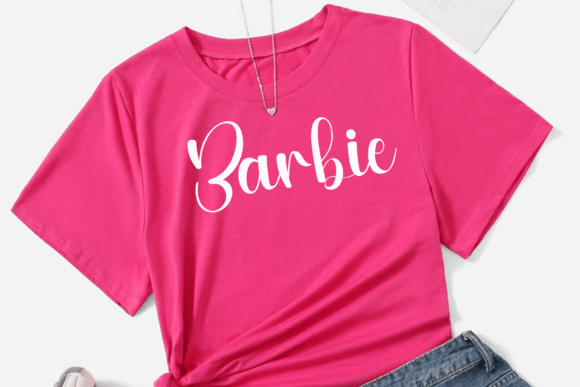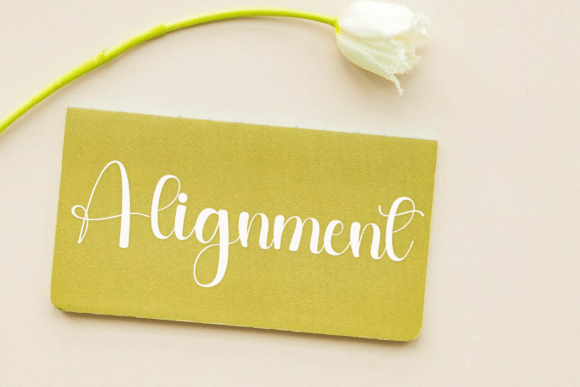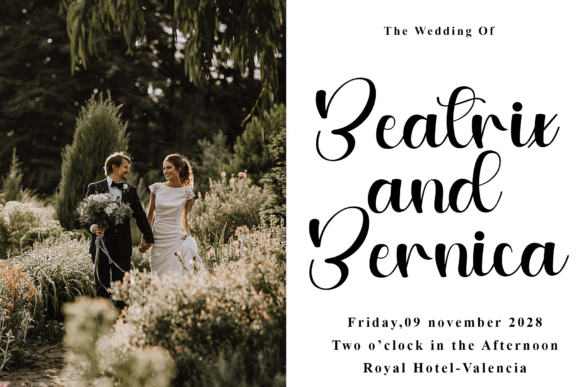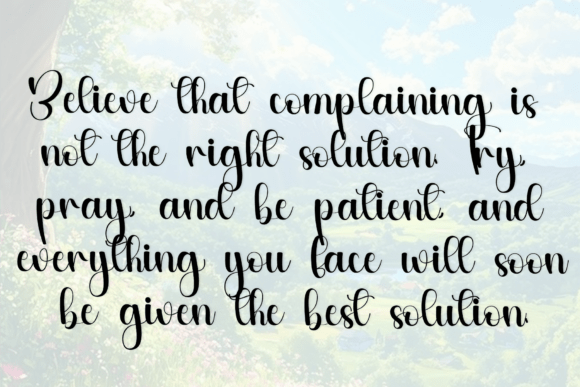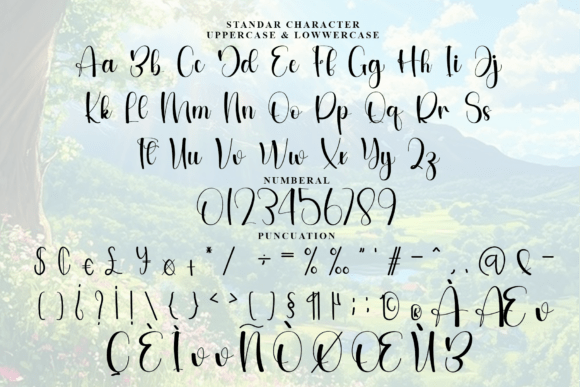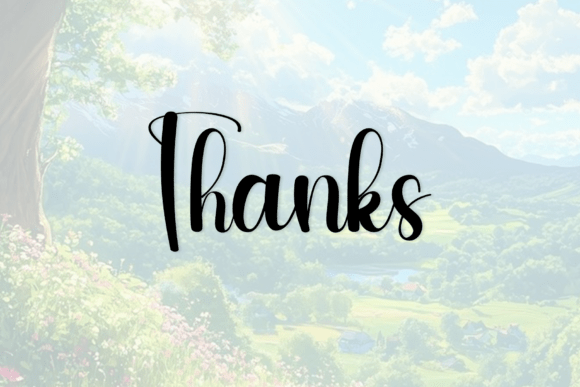
Discover the Enchanting Font: A Stylish Handwritten Typeface for Your Creative Projects
Are you looking for a font that can add a touch of organic charm and a strong typographic presence to your designs? Look no further than the Enchanting font, a stylish handwritten typeface that is sure to captivate your audience. In this article, we’ll explore the unique features of the Enchanting font, its uses, and why it’s a great addition to your font collection.
The Unique Characteristics of Enchanting Font
The Enchanting font is a beautiful blend of organic and strong typographic elements. Its thick, solid strokes give it a bold and confident look, while its distinct “bouncy” rhythm adds a friendly and approachable character. This font is part of the “Unique and Professional” collection, which means it’s designed to help you create stunning designs that stand out from the crowd.
One of the key features of the Enchanting font is its well-balanced proportions. Even in busy designs, this font remains impactful and easy to read, making it perfect for a wide range of applications. Whether you’re designing a logo, creating a brochure, or crafting a social media post, the Enchanting font is sure to make a lasting impression.
Perfect for Outdoor Lifestyle Branding and More
The Enchanting font is perfectly suited for outdoor lifestyle branding, organic product packaging, travel-themed graphics, and rustic event invitations. Its handmade look and feel evoke a sense of adventure and freedom, making it ideal for brands that want to convey a sense of excitement and exploration.
Imagine using the Enchanting font to create a logo for a outdoor gear company, a label for a craft beer, or a poster for a music festival. The possibilities are endless, and the Enchanting font is sure to help you create stunning designs that capture the essence of your brand.
Why Designers and Crafters Love the Enchanting Font
Designers and crafters love the Enchanting font for its versatility and flexibility. It’s a font that can be used in a wide range of projects, from digital designs to print materials. Its unique character and handmade look make it perfect for adding a personal touch to your designs.
Moreover, the Enchanting font is easy to use and pairs well with other fonts, making it a great addition to your font collection. Whether you’re a professional designer or a crafter, the Enchanting font is sure to inspire your creativity and help you create stunning designs.
Tips for Using the Enchanting Font
Here are some tips for using the Enchanting font in your designs:
- Use the Enchanting font as a headline font to add a touch of personality to your designs.
- Pair the Enchanting font with other fonts to create a unique and interesting contrast.
- Use the Enchanting font to create a sense of adventure and freedom in your designs.
In conclusion, the Enchanting font is a stylish handwritten typeface that is sure to captivate your audience. Its unique blend of organic charm and strong typographic presence makes it perfect for a wide range of applications, from outdoor lifestyle branding to rustic event invitations.
Whether you’re a designer or a crafter, the Enchanting font is a great addition to your font collection. Its versatility, flexibility, and handmade look make it perfect for adding a personal touch to your designs. So why not give the Enchanting font a try and see how it can elevate your designs to the next level?